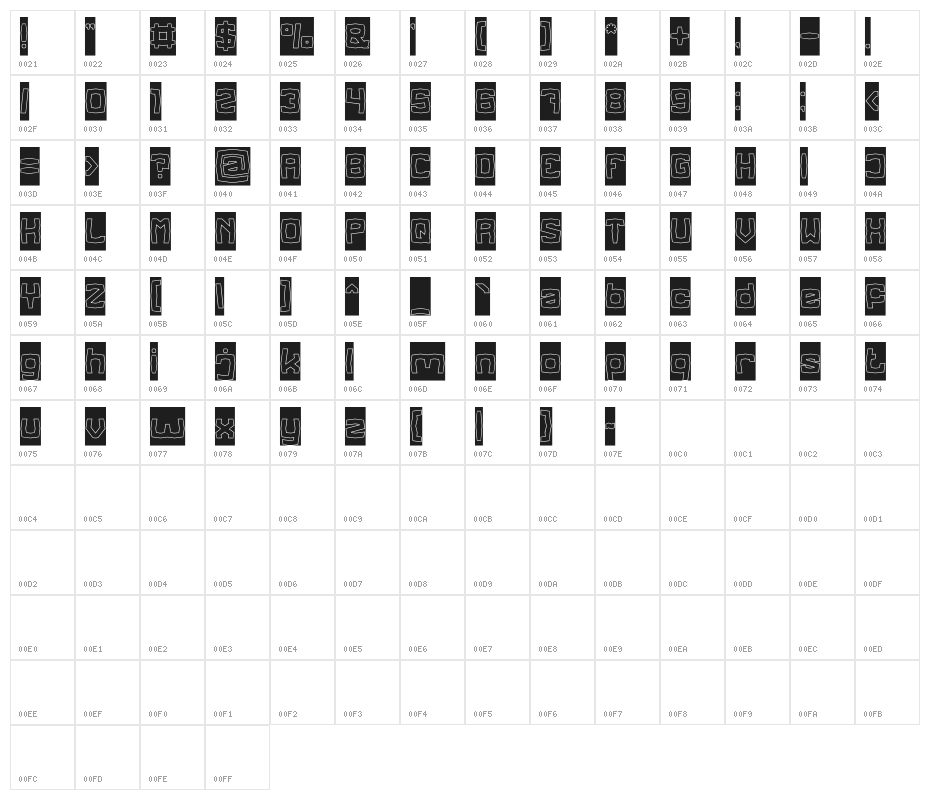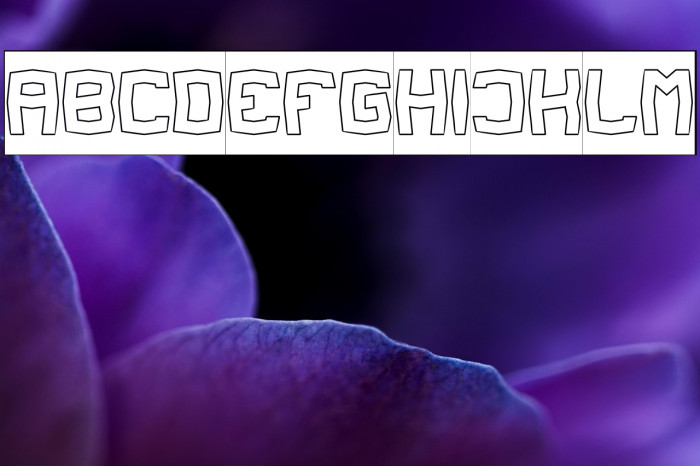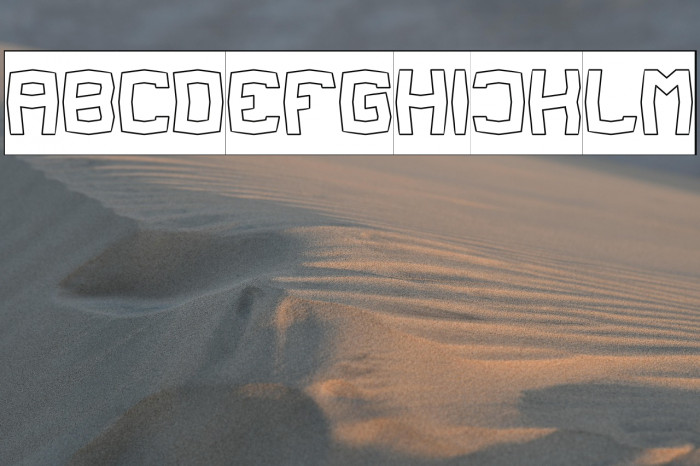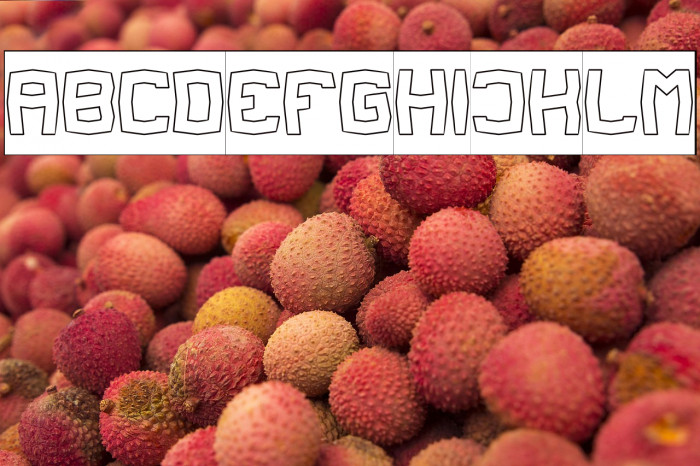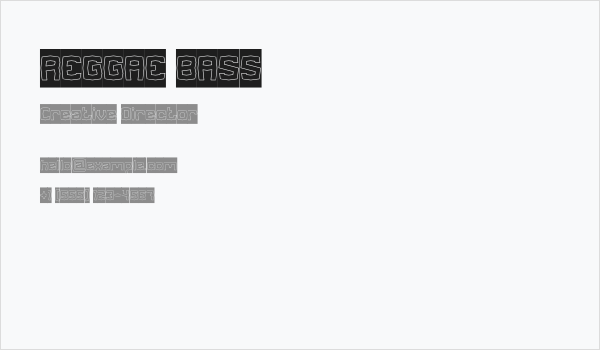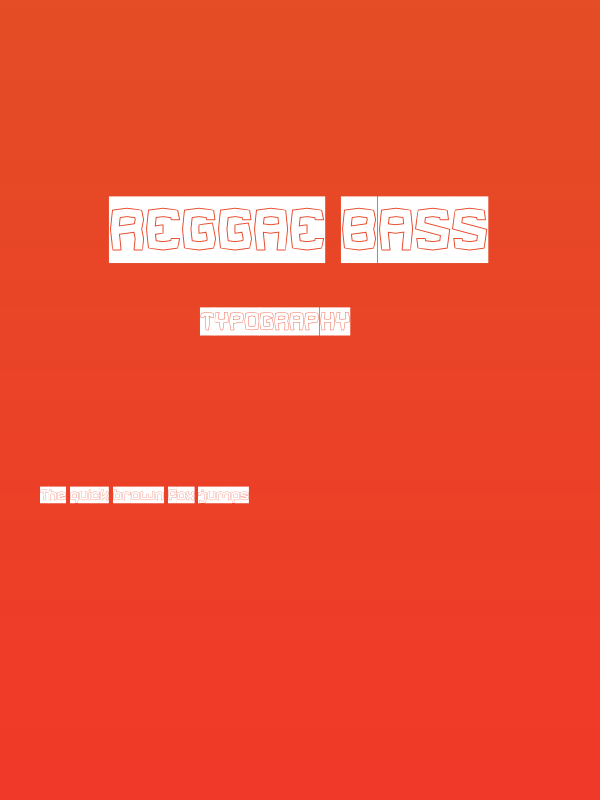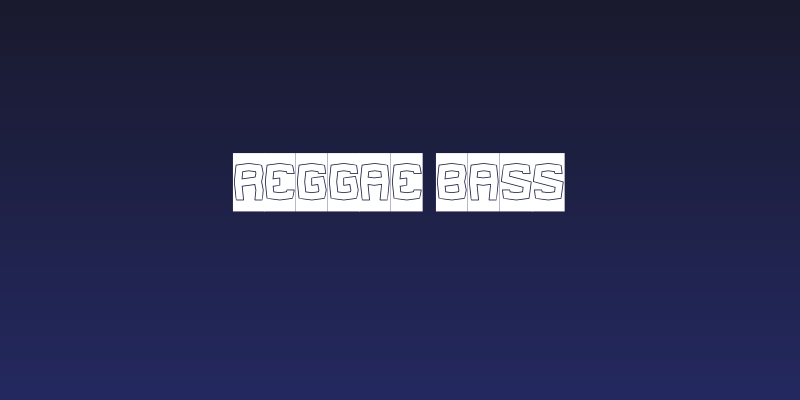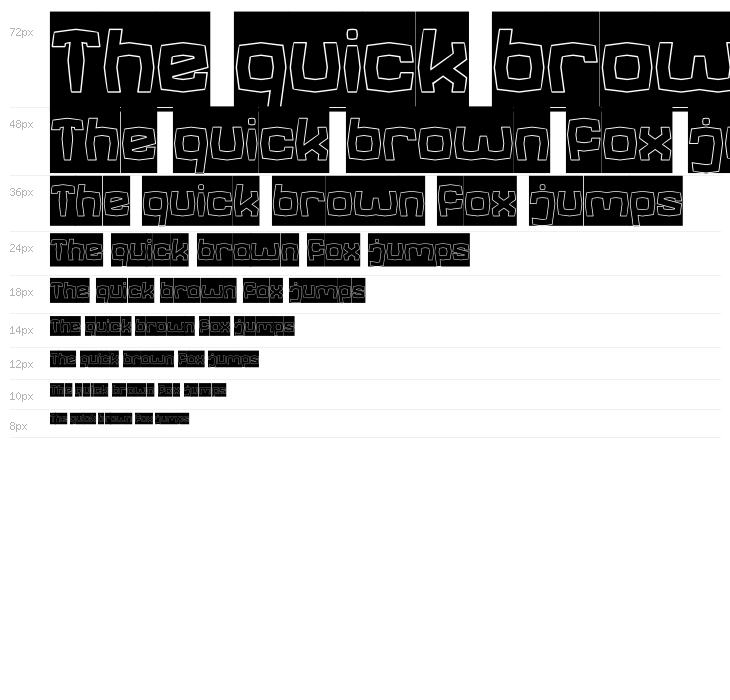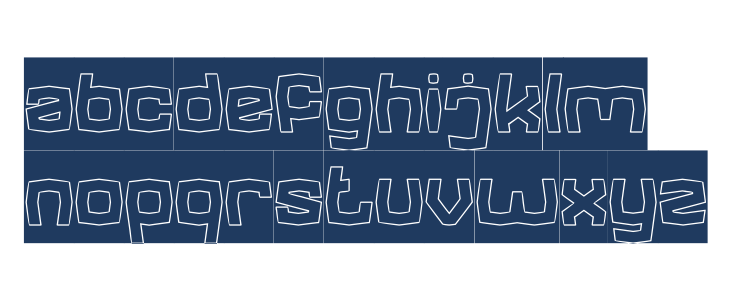
REGGAE BASS Font
REGGAE BASS Description
This font features a bold, playful style with a hand-drawn appearance. Each character is outlined with a thick, uneven stroke, giving it a dynamic and energetic feel. The irregular shapes and quirky design elements make it stand out, adding a sense of movement and rhythm. The uppercase and lowercase letters maintain a consistent style, while the numbers and special characters complement the overall aesthetic. This font's unique personality makes it ideal for projects that require a fun and informal touch.
Overall StylePlayful, Energetic, Hand-drawn
Proposed ProjectsPerfect for music posters, album covers, children's books, and creative branding projects.